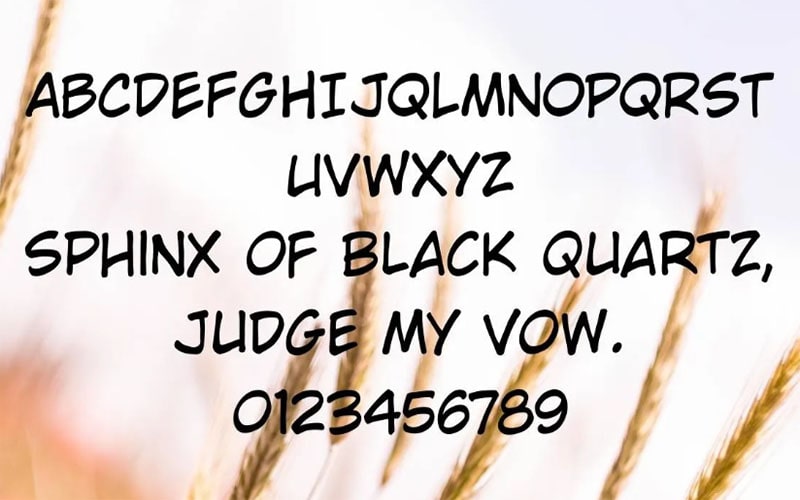
The CC Wild Words Roman font is widely recognized for its use in comic book lettering. This font captures the essence of dynamic and expressive comic text, balancing readability with a playful, informal style.
The designer behind CC Wild Words Roman is Comicraft, a company founded by Richard Starkings and John Roshell.
Comicraft specializes in creating high-quality fonts tailored specifically for comic books, making them a go-to resource for comic book artists and publishers.
This font is characterized by several key features that make it ideal for comic book lettering such as Bold and Readable, Expressive Lettering, and All-Caps Design.
CC Wild Words Roman Font
| Font Name: | CC Wild Words Roman Font |
| Style: | Brush, Display, Typeface |
| Font Designer: | John Roshell |
This styling typeface is more than just a typeface; it is a cornerstone of comic book design, embodying the spirit and energy of illustrated storytelling.
Although often criticized for its overuse, it offers a similar informal and playful style such as the Whataburger Logo Font designed by Jeremie Dupuis, and the Comic Code Font designed by Toshi Omagari.